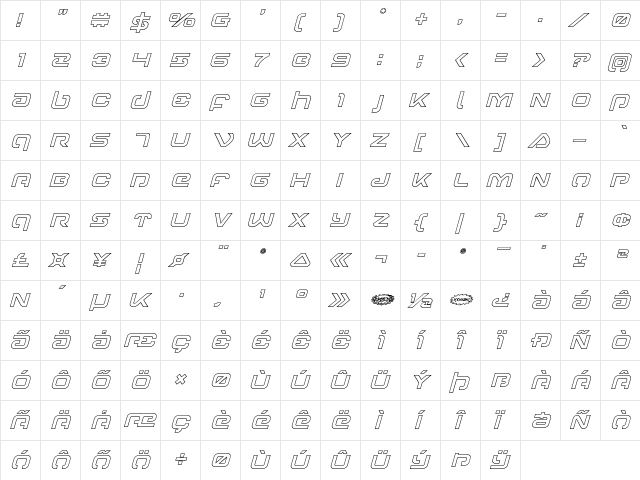
Gunrunner Ouline Italic Ouline Italic
Design Context for Gunrunner Ouline Italic Typeface
Gunrunner Ouline Italic offers clean, dependable letterforms without strong stylistic allegiance, making it a practical choice for designers who need flexibility. The slanted form adds forward momentum and visual energy.
Pro Tip: Try Gunrunner Ouline Italic for annotation and caption copy alongside an upright companion — the contrast in angle creates a dynamic but ordered typographic system.